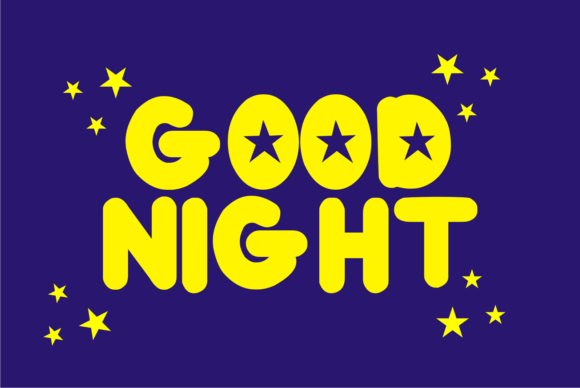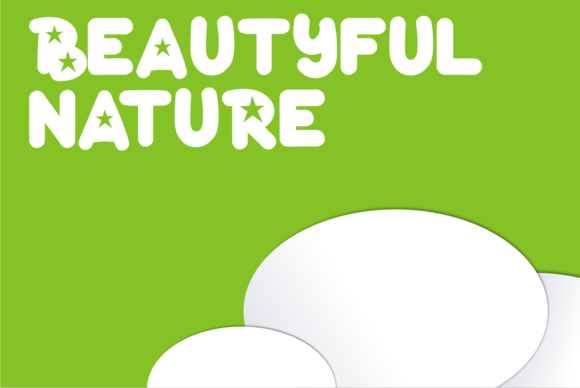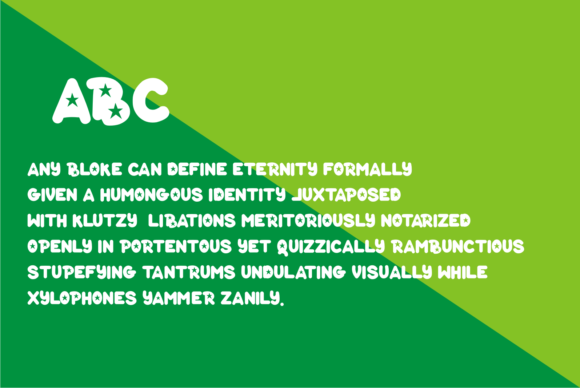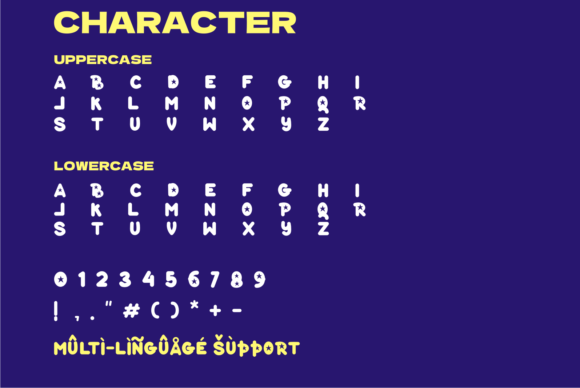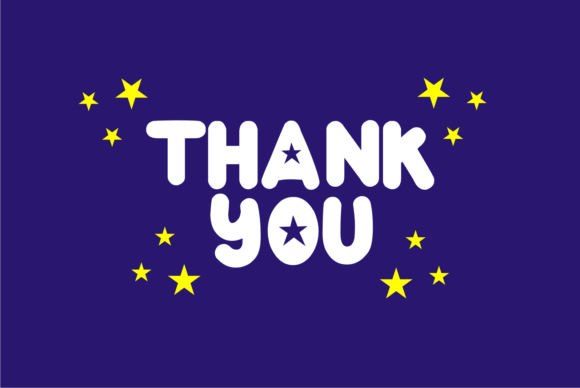
The Designer’s Delight: Book Stars Font
Have you ever been in the middle of a design project, and suddenly, it feels like something’s missing? You’re not quite sure what it is, but you know it’s not quite right. For me, that “something” is often the font. I recall working on a project for a client who wanted a bold, eye-catching logo, but I was struggling to find the perfect font. That’s when I stumbled upon Book Stars, and it was love at first sight! ✨
So, what makes Book Stars so special? Let’s dive into the good stuff and, of course, a few quirks. 😉
• ✅ Unique and Trendy Design: Book Stars has a cool, modern look that’s perfect for making your designs stand out.
• ✅ Versatile: This font is great for logos, badges, clothing, posters, and any project that needs a bit of flair.
• ✅ Easy to Read: Despite its trendy design, Book Stars remains clear and readable, even at smaller sizes.
While Book Stars is an amazing font, there are a few things to keep in mind: 🤔
• ⚠️ Limited Use in Body Text: Due to its display nature, Book Stars might not be the best choice for long body text. It’s perfect for headings and titles, though!
• ⚠️ Glyph Support: Some users have reported limited support for certain glyphs or special characters. It’s essential to test the font with your specific needs.
Book Stars was created with the intention of capturing the essence of celestial wonder and translating it into a font that’s both fun and functional. The designer, inspired by the night sky and the idea of stars twinkling, aimed to create a font that would add a touch of whimsy and excitement to any project.
What makes Book Stars unique? Book Stars boasts a trendy, star-themed design that’s perfect for making your projects stand out.
Is Book Stars suitable for body text? While Book Stars is primarily a display font, it’s best used for headings and titles. For body text, consider a clearer, more readable font.
Book Stars is more than just a font; it’s a design element that can elevate your projects from ordinary to extraordinary. With its unique style, versatility, and ease of use, it’s an excellent addition to any designer’s toolkit. So go ahead, add Book Stars to your creative arsenal, and watch your designs come alive! 🌟